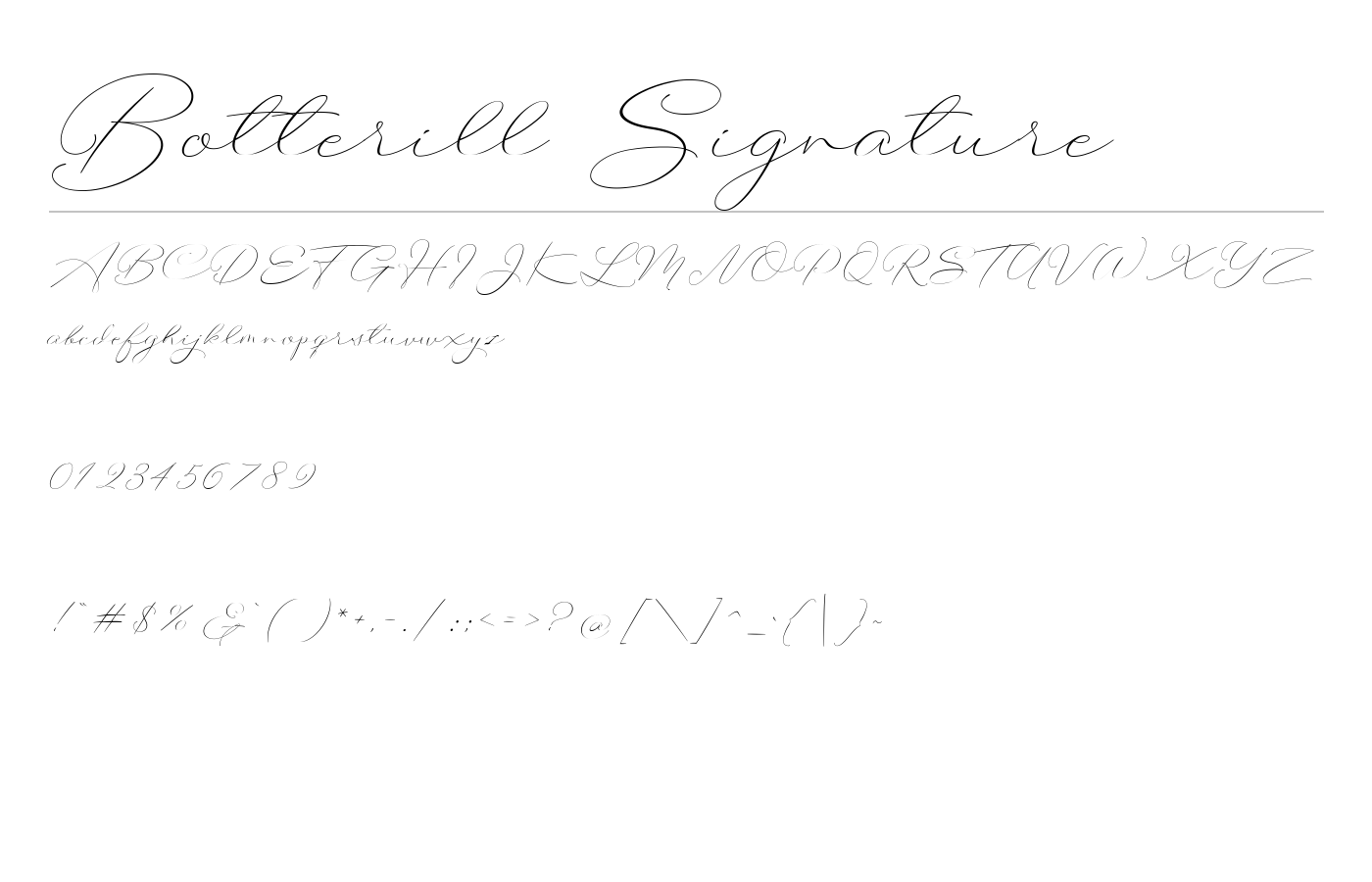
Botterill Signature Font is an elegant, delicate script typeface that mimics graceful, flowing handwriting with fine, light strokes and sophisticated curves. Its slender, airy design exudes a personal, intimate feel, making it perfect for luxury branding, invitations, and stylish logos where a touch of refinement and charm is desired. This font works best in contexts that require a signature-style, handwritten elegance to convey sophistication and a bespoke aesthetic.
Botterill Signature Font
About Botterill Signature Font